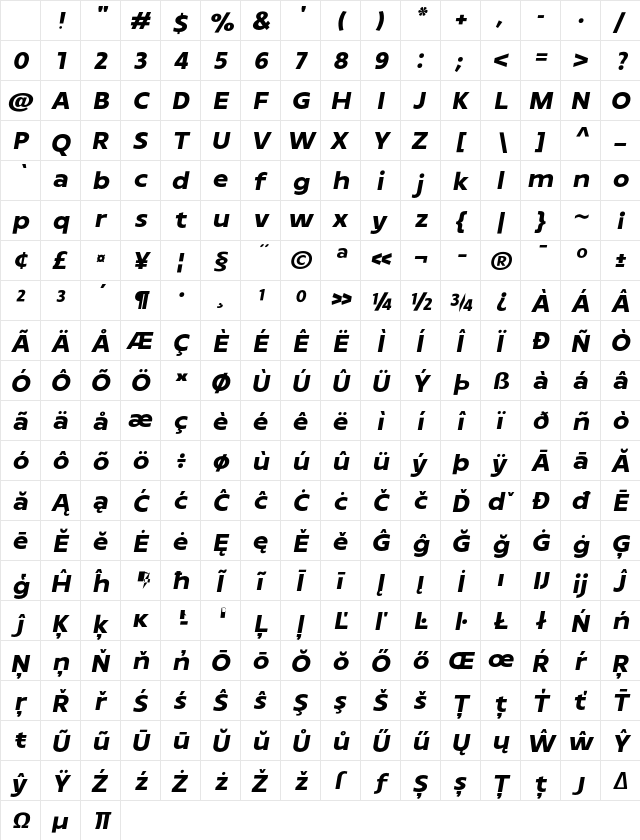
Complete Archopada Oblique Bold glyph index. Displaying only characters natively supported by Archopada Oblique Bold font.
Archopada Oblique is a composed and adaptable typeface that performs quietly and consistently across a wide range of design contexts. The slanted form adds forward momentum and visual energy. Its bold stroke weight gives it real presence on the page.